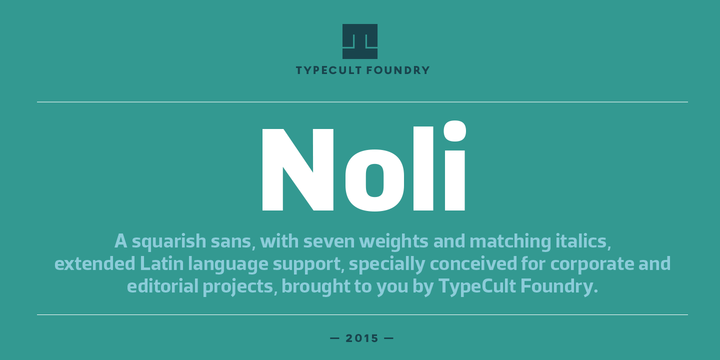
TCF Noli
by TypeCult Foundry
TCF Noli is a no nonsense straight-sided typeface with a soft technical appearance. Designed with seven weights and true matching italics, TCF Noli was specially developed with corporate and editorial projects in mind. The clarity of the letter forms and the openness of TCF Noli make it very readable in small sizes and suitable for every design purpose.
TCF Noli is available with extended Latin language support.